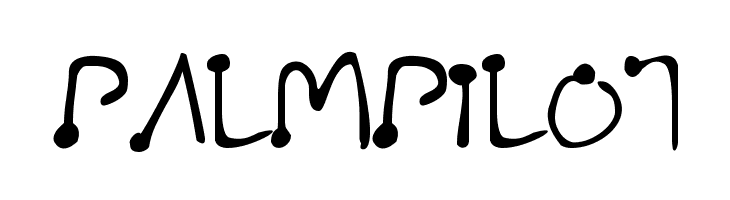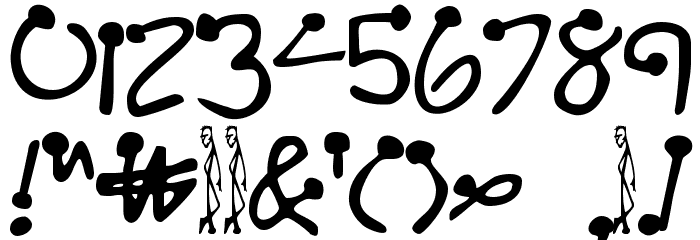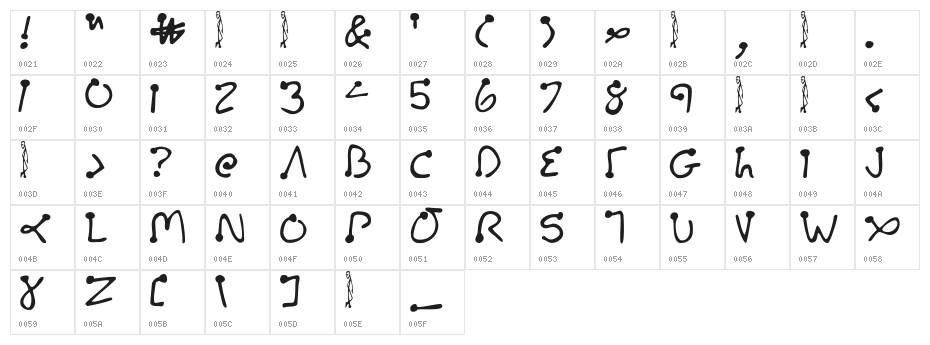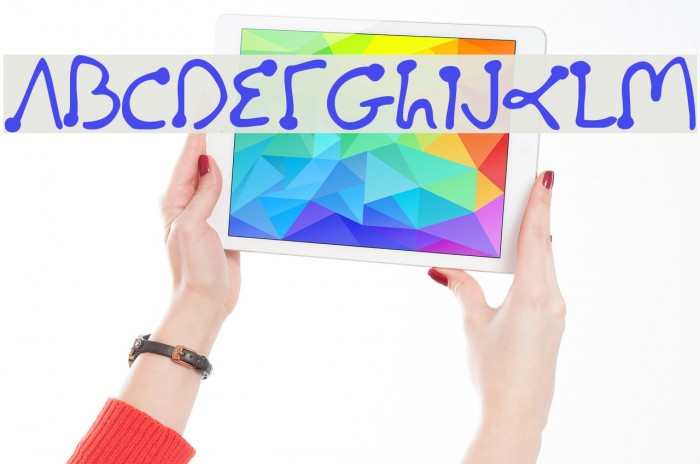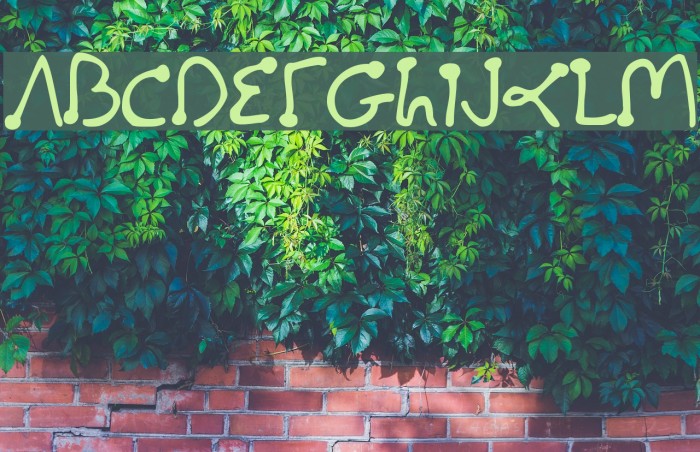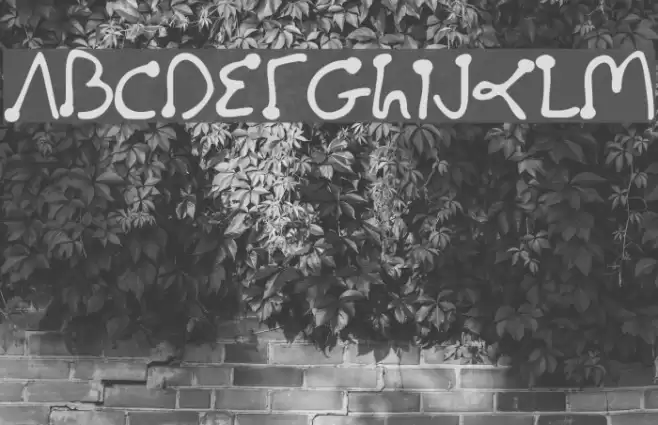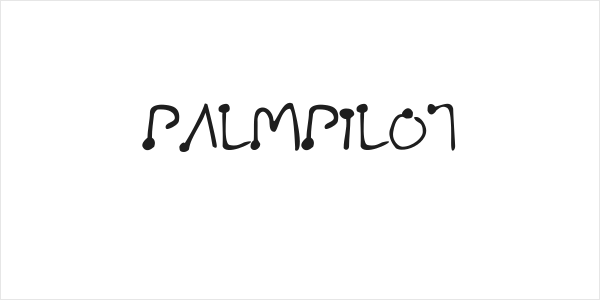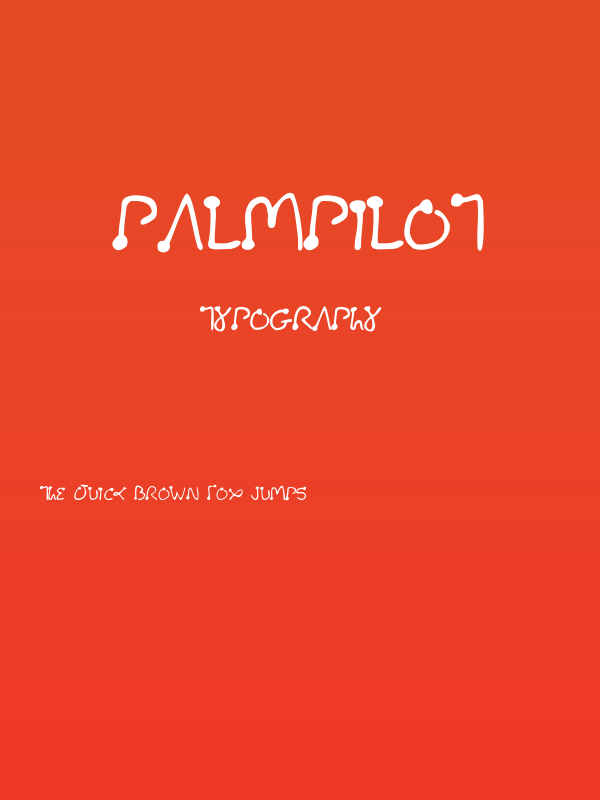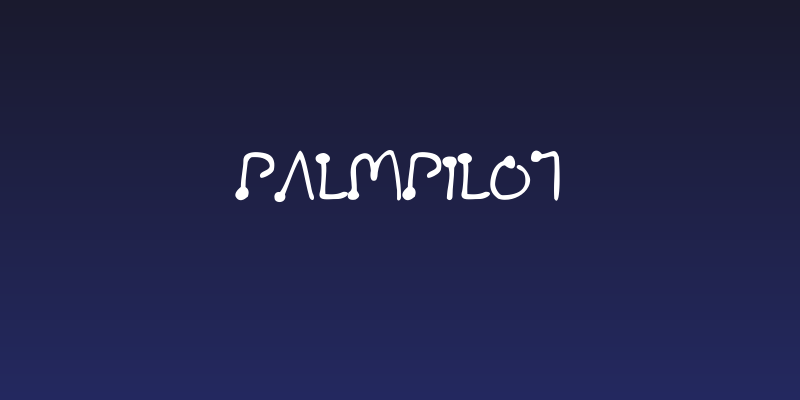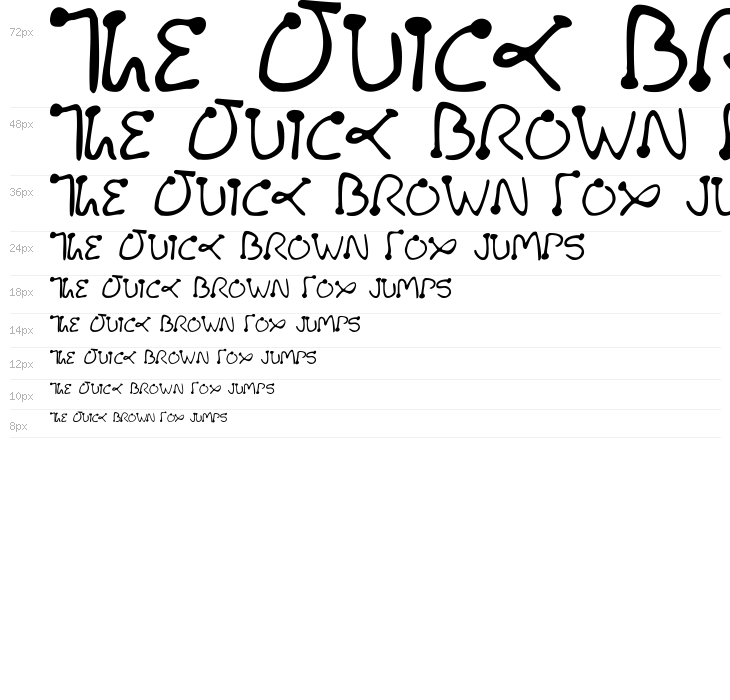
PalmPilot Font
PalmPilot Description
This font features a playful and unique design, characterized by bold, rounded strokes with distinct dot-like terminals. The letters are interconnected with smooth curves, giving it a whimsical and artistic appearance. The uppercase and lowercase letters maintain a consistent style, with exaggerated curves and loops that add to its decorative nature. Numbers and special characters follow the same playful theme, making it suitable for creative and informal projects. The overall design is eye-catching and memorable, perfect for making a statement.